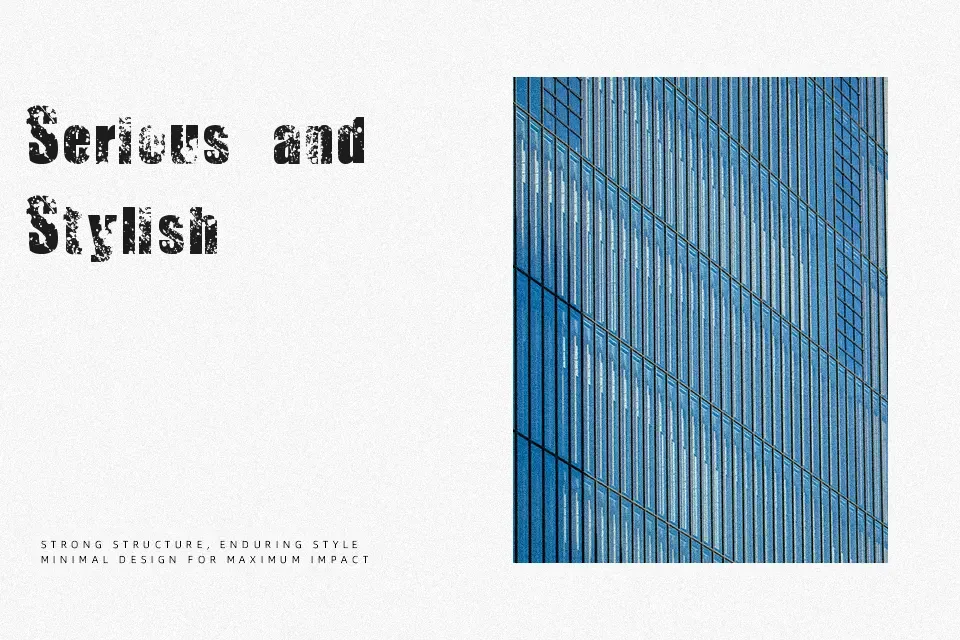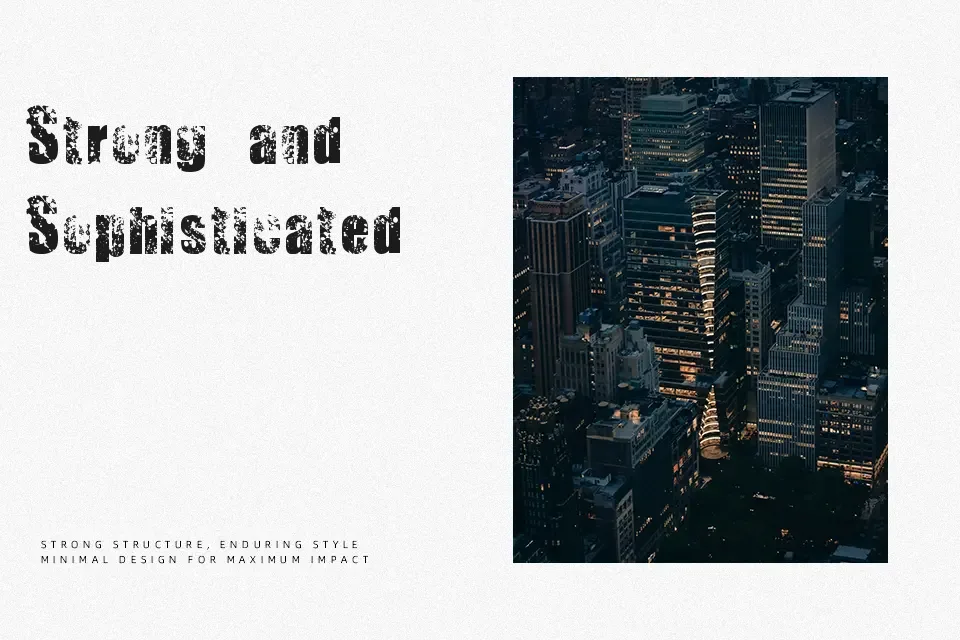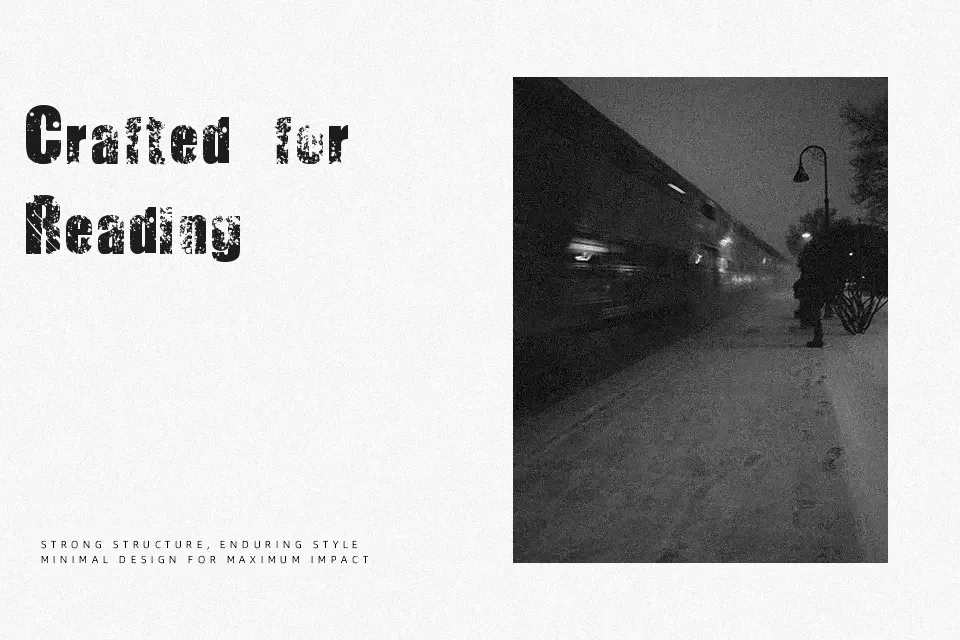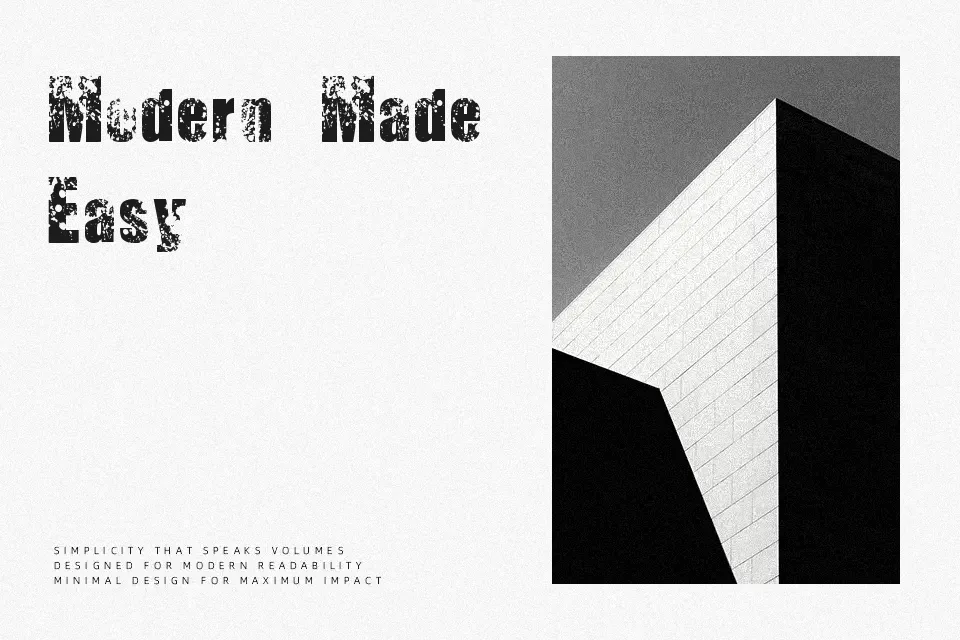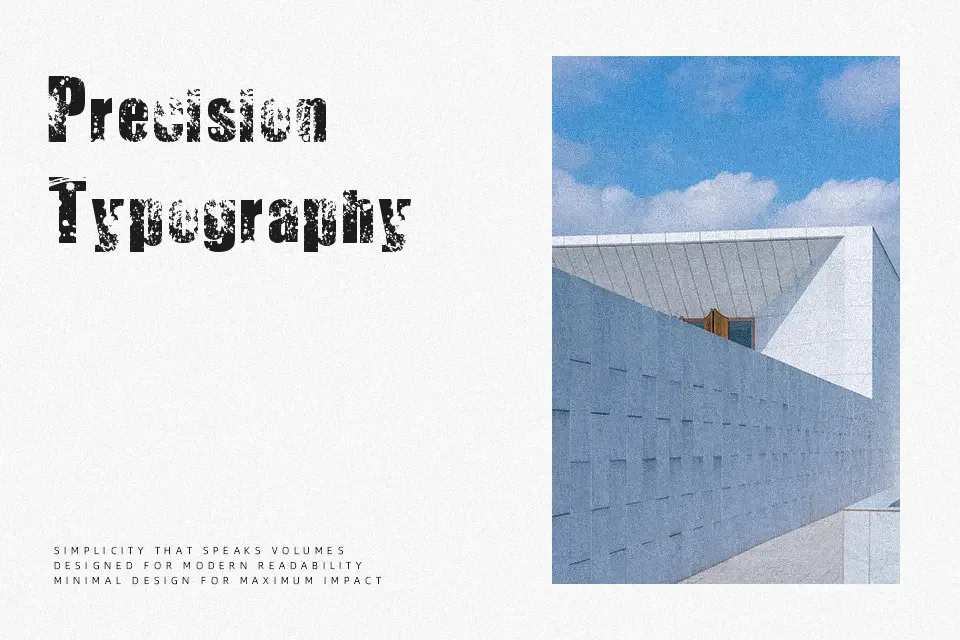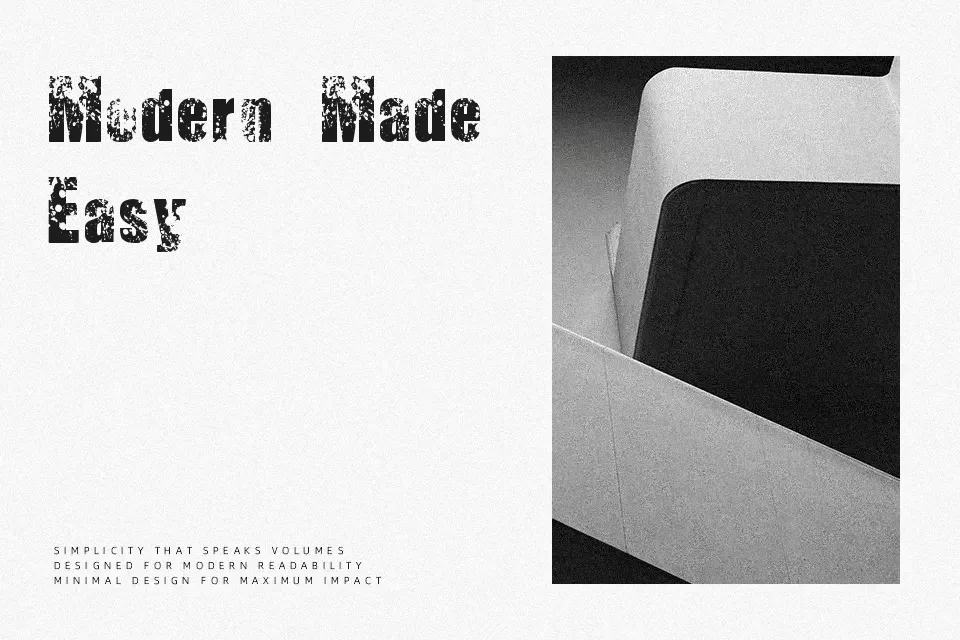
Thirsty for Souls Font
Featuring fractured strokes and corroded edges across every glyph, Thirsty for Souls Font establishes an aggressive visual structure built over uniform sans-serif proportions. The letterforms display dense, consistent weights interrupted by irregular splatters and speckles that simulate decaying print. Moderately tight character spacing keeps titles cohesive, giving short headlines, haunted attraction flyers, and heavy music branding substantial graphic weight. However, the abrasive distressing compromises stroke clarity when scaled down, making small captions or dense body copy practically illegible. The typeface performs best when displayed at prominent sizes, where its harsh textures can communicate raw tension without sacrificing decipherability.
Best For: horror movie posters, heavy metal album art, Halloween event flyers
Not Ideal For: continuous body text, mobile interface labels, legal documents
Perfect for film, halloween, and headline, with a dark and decorative style.